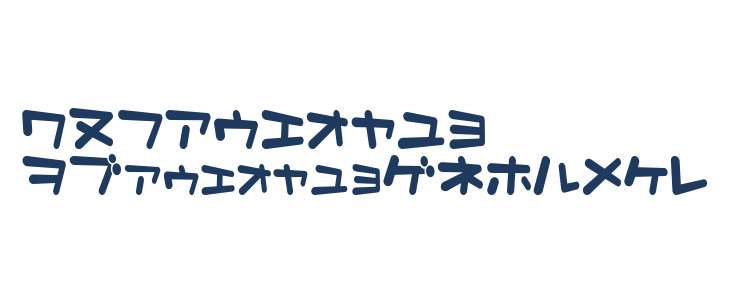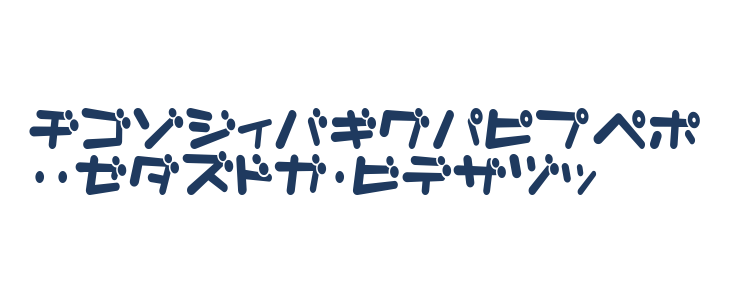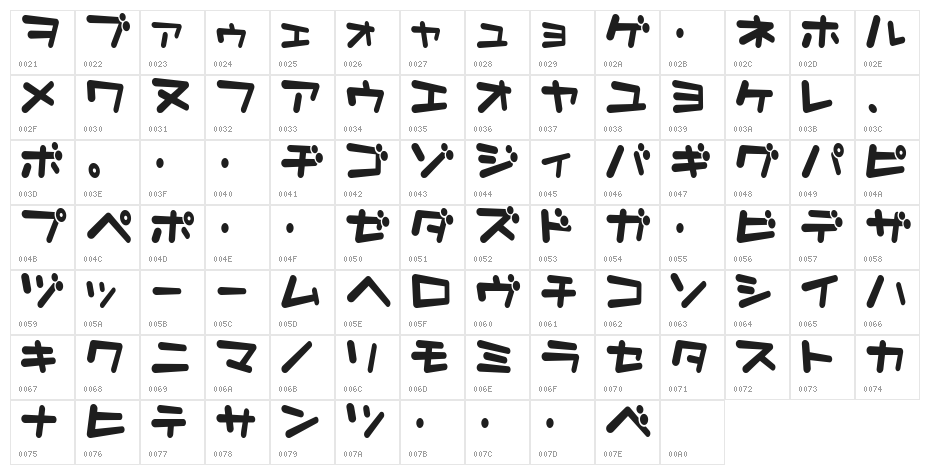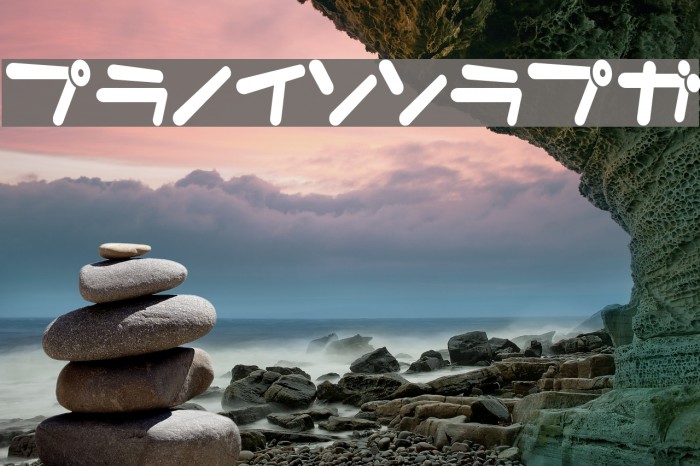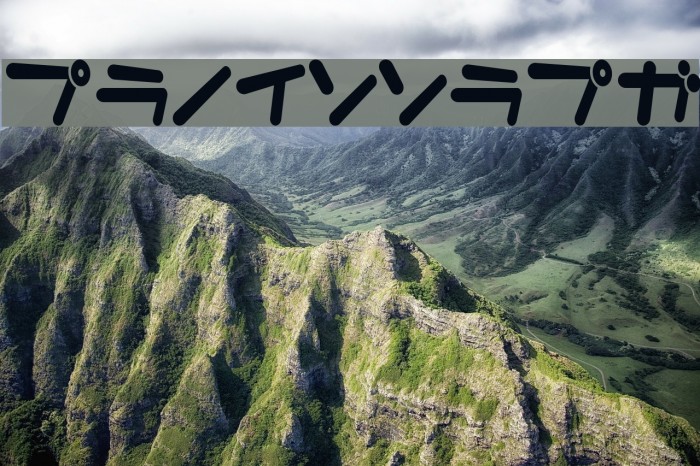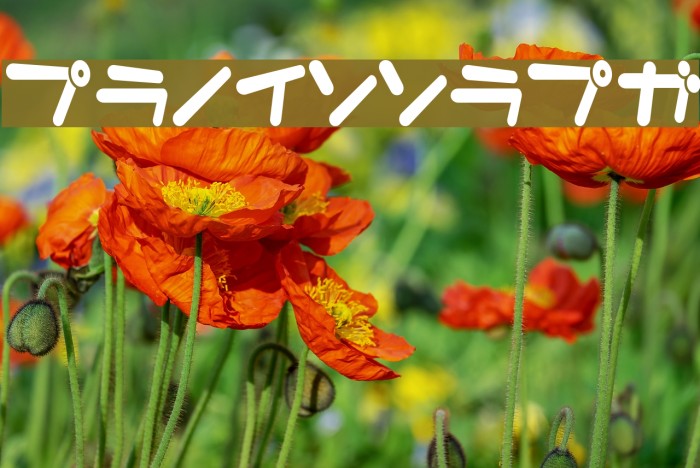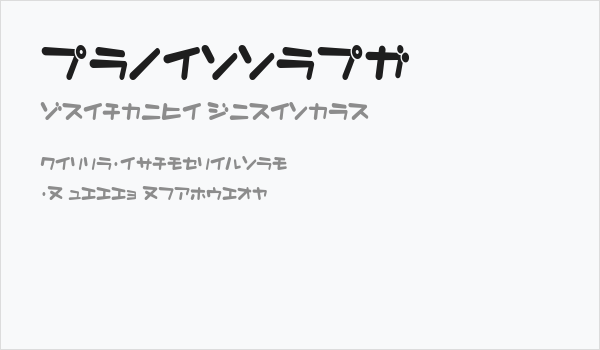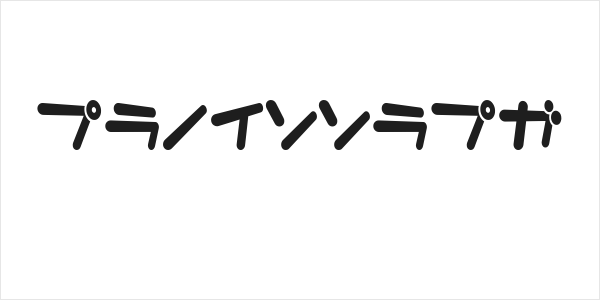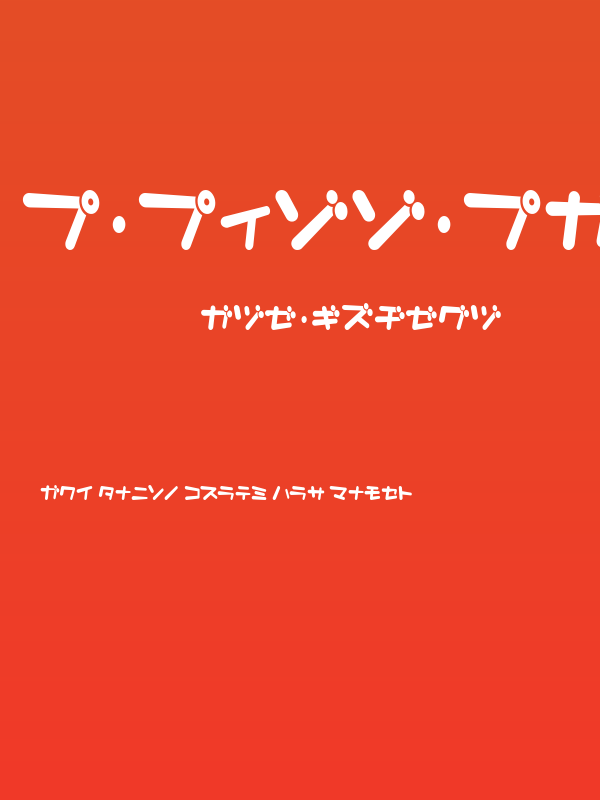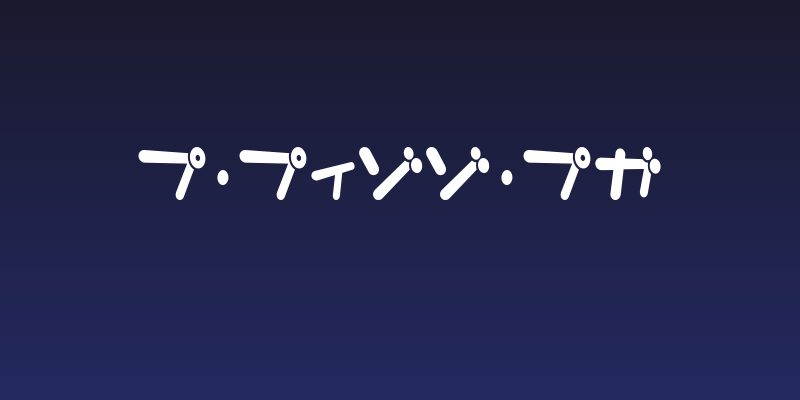
KokeccoKT Font
KokeccoKT Description
This font features a playful and rounded style, characterized by its bold and thick strokes. The characters have a whimsical appearance with slightly uneven lines, giving them a hand-drawn feel. The overall look is informal and friendly, making it suitable for creative and fun projects. The characters are well-spaced, ensuring readability while maintaining a casual aesthetic. This font is ideal for designs that aim to convey a sense of joy and creativity.
| Overall Style | Playful, Whimsical |
| Proposed Projects | Ideal for children's books, playful branding, greeting cards, and creative posters. |